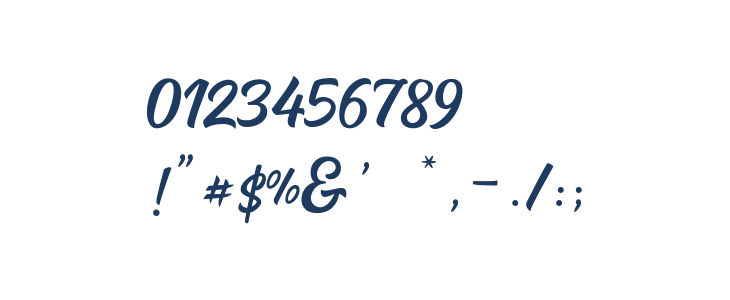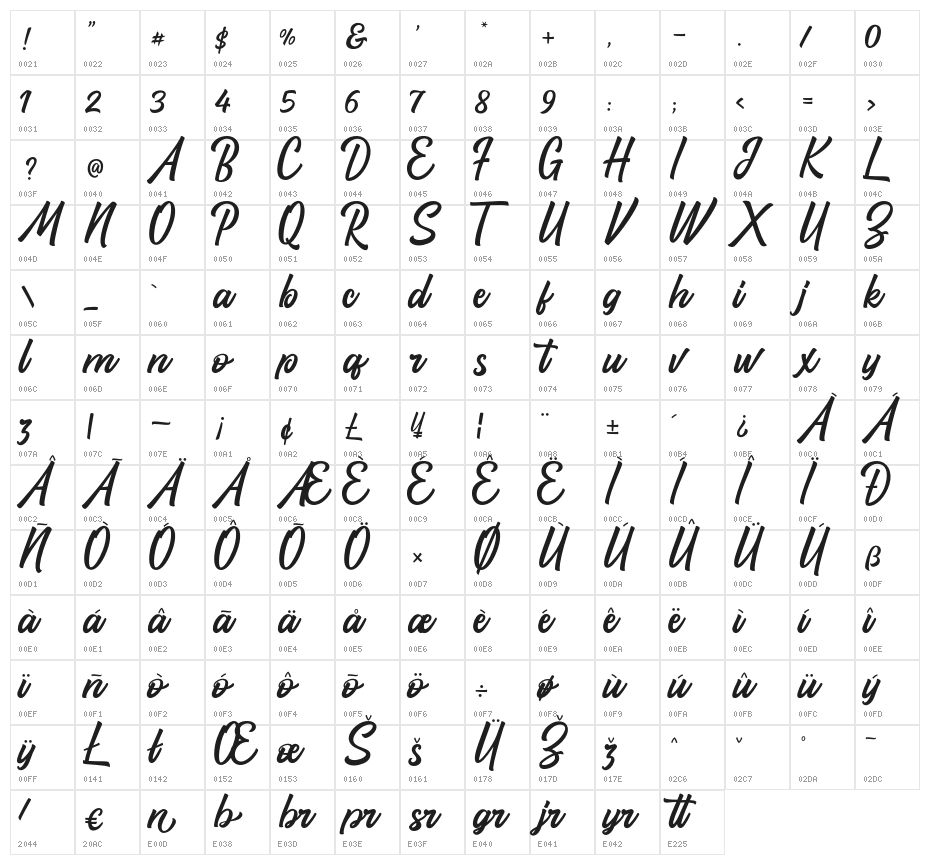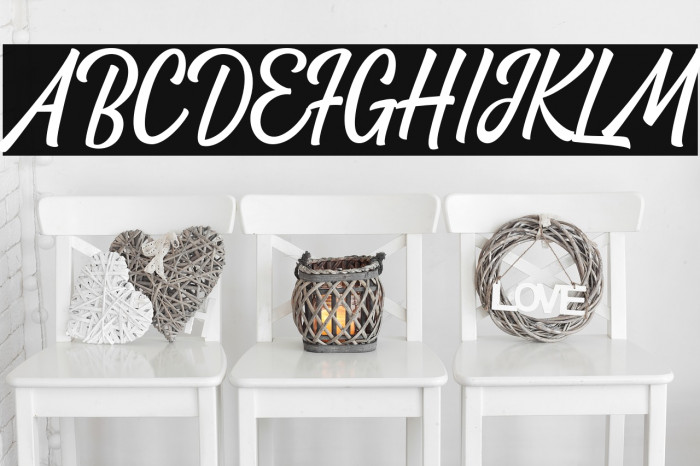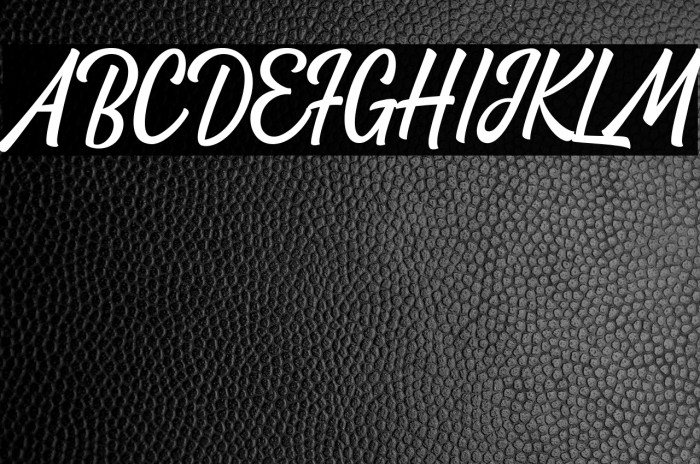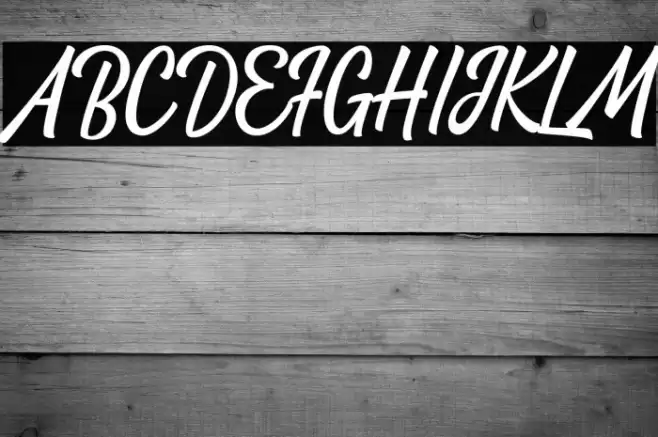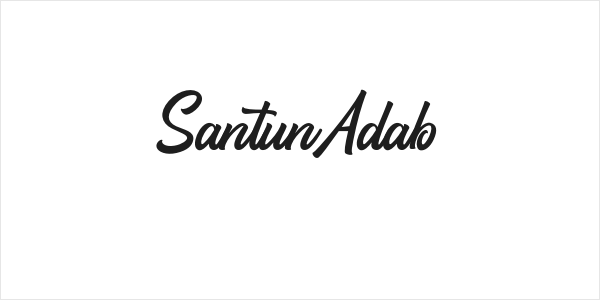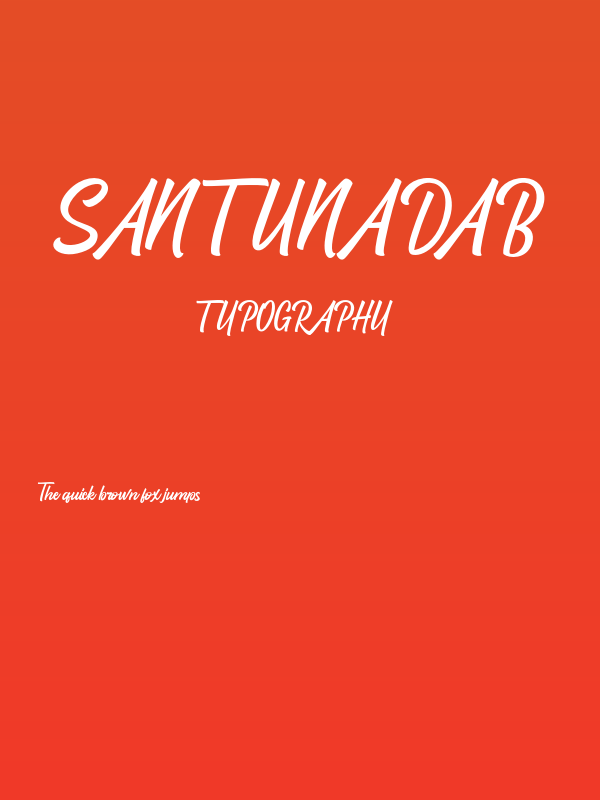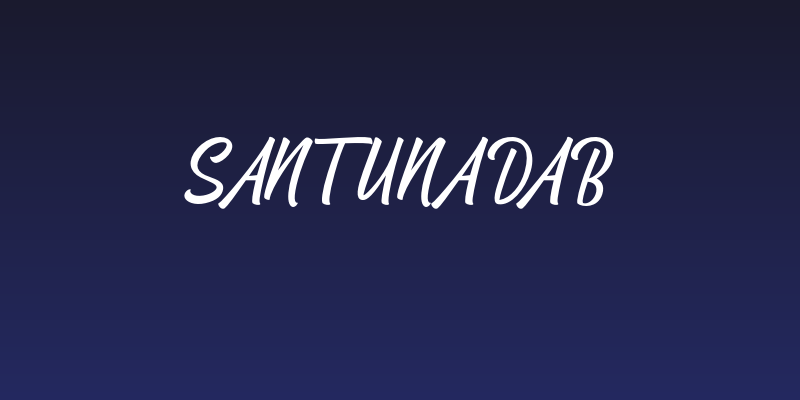
SantunAdab Font
SantunAdab Description
This font features a bold, cursive style with a smooth and flowing appearance. The uppercase letters are tall and slightly slanted, giving a sense of elegance and movement. The lowercase letters maintain a consistent flow, with rounded edges and a connected script that enhances readability. Numbers are bold and clear, matching the overall style of the alphabet. Special characters are well-integrated, maintaining the font's cohesive look. This font's design is both stylish and functional, making it suitable for a variety of creative applications.